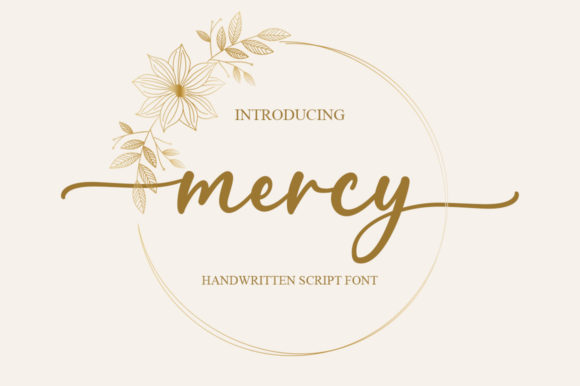
Mercy Font: A Delicate and Elegant Handwritten Font
The Mercy Font is a beautiful, delicate, and elegant handwritten font that has gained popularity among designers and typography enthusiasts. Its flowing curves and well-balanced characters make it an excellent choice for a wide range of design projects. In this article, we’ll explore the features and benefits of the Mercy Font, and why it’s a great addition to any designer’s toolkit.
What is Mercy Font?
Mercy Font is a handwritten font designed with elegance and sophistication in mind. Its delicate curves and flowing lines give it a unique and distinctive look that sets it apart from other fonts. The font is perfect for designs that require a touch of elegance and refinement, such as luxury branding, wedding invitations, and high-end product packaging.
Key Features of Mercy Font
• Delicate and Elegant: Mercy Font is designed with a delicate and elegant look that makes it perfect for high-end designs.
• Handwritten: The font has a handwritten feel that gives it a personal and unique touch.
• Flowing Curves: The font features flowing curves and lines that give it a smooth and sophisticated look.
• Well-Balanced Characters: The characters in Mercy Font are well-balanced and proportioned, making it easy to read and use.
• PUA Encoded: The font is PUA encoded, which means you can access all of the glyphs and swashes with ease.
Benefits of Using Mercy Font
Mercy Font offers several benefits to designers and typography enthusiasts. Here are some of the advantages of using this beautiful font:
Why Choose Mercy Font?
• Versatility: Mercy Font can be used for a wide range of design projects, from luxury branding to wedding invitations and high-end product packaging.
• Elegance: The font’s delicate and elegant look makes it perfect for designs that require a touch of sophistication and refinement.
• Readability: The well-balanced characters and flowing curves of Mercy Font make it easy to read and use.
• Customization: The font’s PUA encoding allows you to access all of the glyphs and swashes, giving you complete control over the design.
• Unique Look: Mercy Font has a unique and distinctive look that sets it apart from other fonts.
Design Applications of Mercy Font
Mercy Font can be used for a wide range of design projects, including:
Where to Use Mercy Font?
• Luxury Branding: Mercy Font is perfect for luxury branding projects that require a touch of elegance and sophistication.
• Wedding Invitations: The font’s delicate and elegant look makes it perfect for wedding invitations and other wedding-related designs.
• High-End Product Packaging: Mercy Font can be used for high-end product packaging that requires a touch of luxury and sophistication.
• Magazines and Editorials: The font can be used for magazines and editorials that require a elegant and refined look.
• Signage and Displays: Mercy Font can be used for signage and displays that require a touch of elegance and sophistication.
Tips for Using Mercy Font
Here are some tips for using Mercy Font effectively in your designs:
Best Practices for Using Mercy Font
• Use it Sparingly: Mercy Font is a elegant and refined font, so use it sparingly to avoid overwhelming the design.
• Pair it with Other Fonts: The font can be paired with other fonts to create a unique and interesting look.
• Experiment with Colors: Mercy Font can be used with a range of colors to create different effects and moods.
• Pay Attention to Kerning: Make sure to pay attention to kerning and tracking to ensure that the text is easy to read.
Mercy Font is a beautiful, delicate, and elegant handwritten font that is perfect for designs that require a touch of sophistication and refinement. Its flowing curves and well-balanced characters make it easy to read and use, and its PUA encoding allows for complete customization. With its versatility and unique look, Mercy Font is a great addition to any designer’s toolkit.